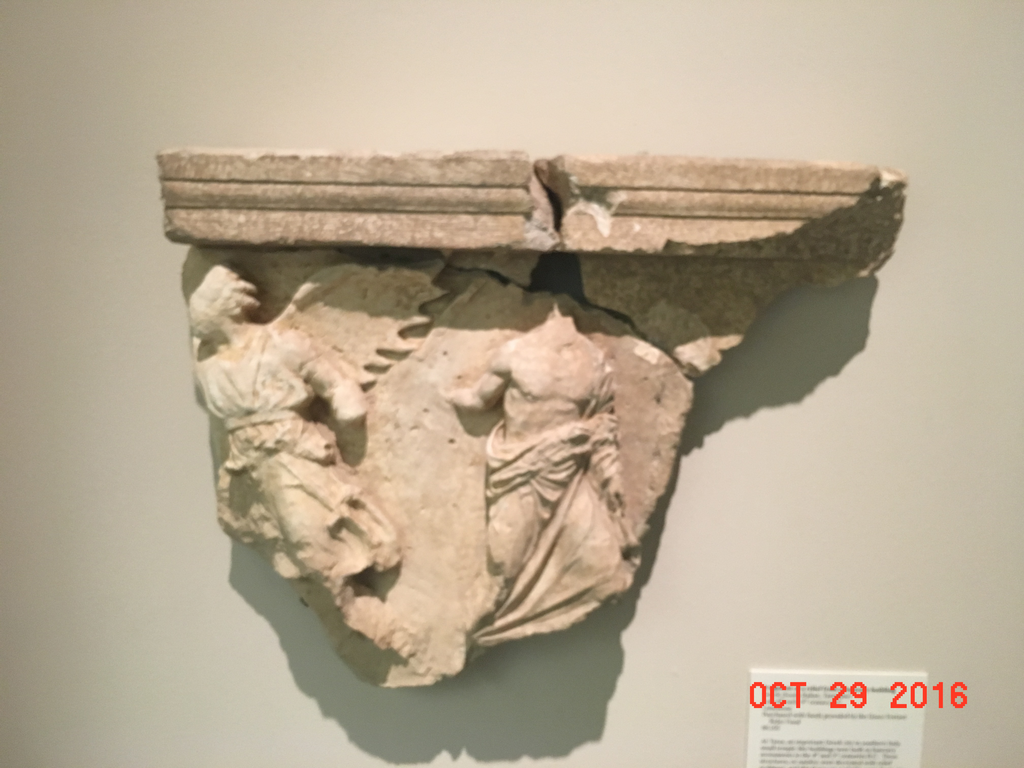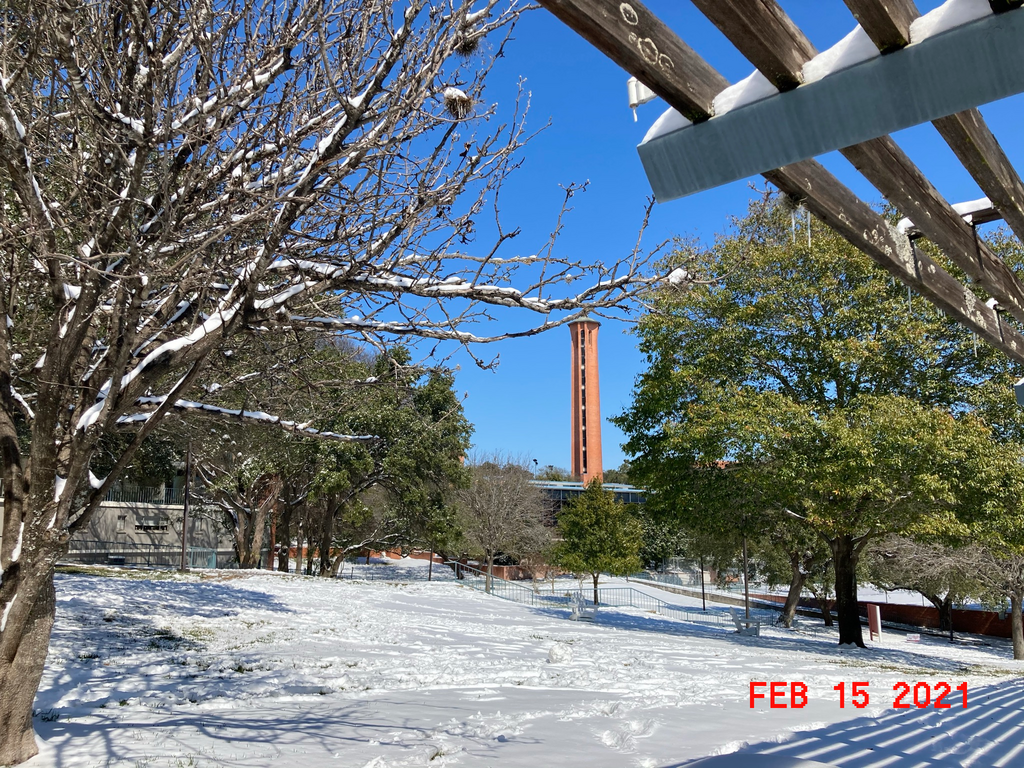
• A font based on the date stamps superimposed on photos taken with an old Sony Cybershot digital camera, exact model unknown, circa 2000.
IMPORTANT: This is NOT a 100 percent accurate recreation of Sony's original font!  I do not have access to the original camera itself, only the photos taken with it.  Only the characters which appear in said photos are direct copies: digits 0-9, and letters A-G, J, L-P, R-V, and Y.  The process of reconstructing these characters was one of trial and error, as I had to contend with both the non-integer scaling of the pixels and the loss of detail caused by JPG compression.  However, I am quite confident that my recreations of the aforementioned characters are correct.
The rest of the characters, by contrast, are new fabrications, not directly copied from the original font—  if, indeed, "the original font" existed in the first place.  (A few design inconsistencies, such as E and F having their crossbars at different heights, suggest to me that they weren't all designed by the same person at the same time.)  This meant I had to make a number of editorial decisions when designing them, especially given the limited 8x13 resolution.  Some of them were done more-or-less from scratch, like H and I.  Others were modifications of existing letters, like Q from O and X from Y.  Others still, like W, took inspiration from other Sony fonts of a similar vintage, including SonyCam Original, Xane123's excellent recreation of the Sony Handycam font.
While the images I worked from only included letters and numbers, I went ahead and designed characters to fill out the Basic Latin character set.  These too took inspiration from the above-mentioned sources.  In fact, the asterisk character was taken directly from SonyCam Original—  when cropped to content, it was exactly 8 pixels wide, and I hadn't been able to get the design working myself!  I'm not exactly happy with all of them, but at some point I perfect becomes the enemy of good.  If you have access to a Sony Cybershot camera with characters matching the authentic ones (0-9, A-G, J, L-P, R-V, Y), please leave a comment below!  I would love to improve the authenticity of this font, if possible.
Recommended color value:  #FF3925
Hello RassilonTDavros, old Sony Cybershot digital camera exact model is likely "Mavica FD MVC-92", hope this helps you.